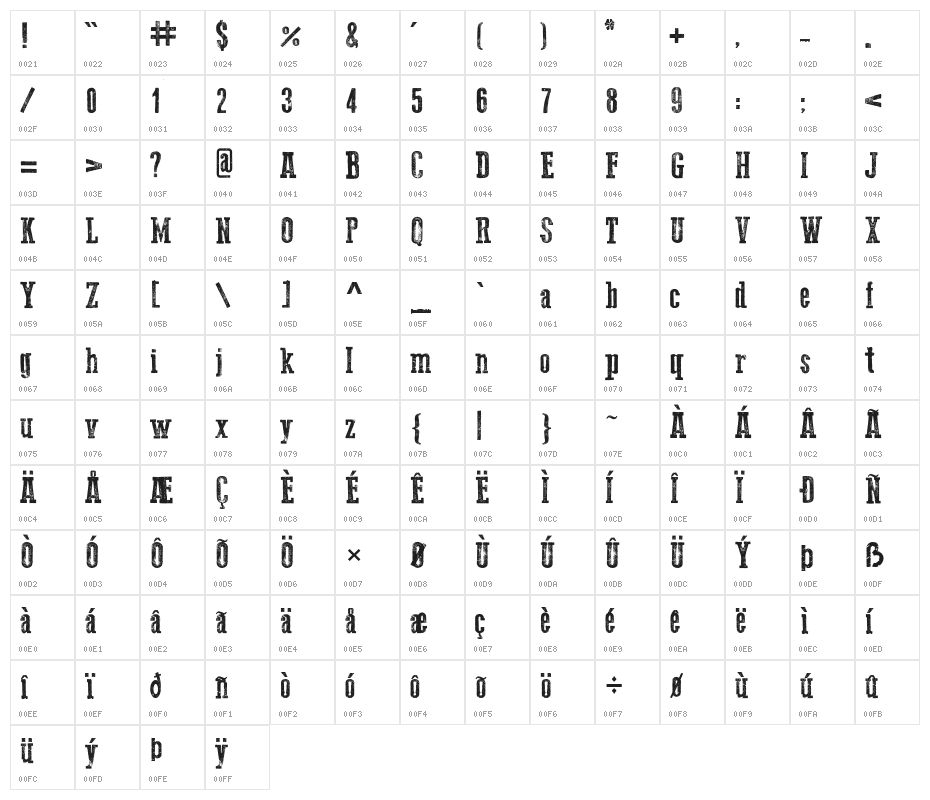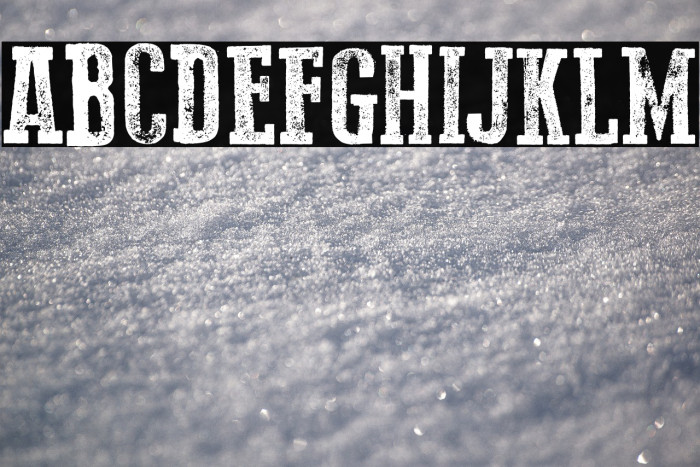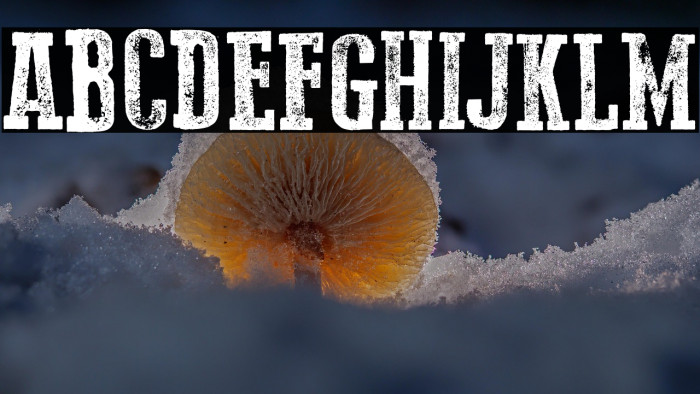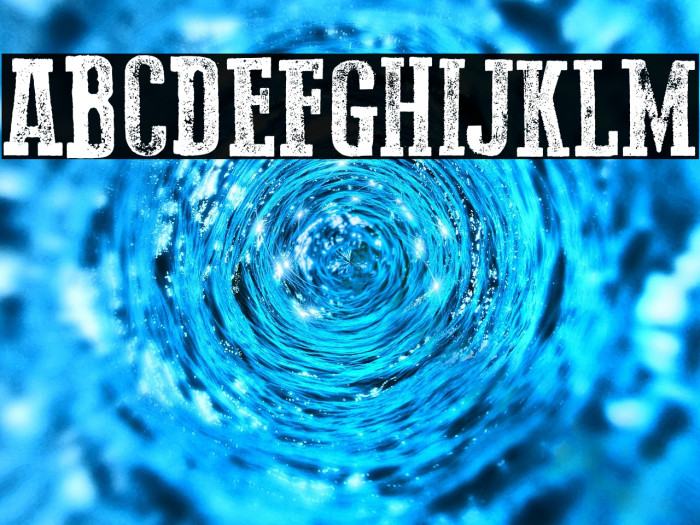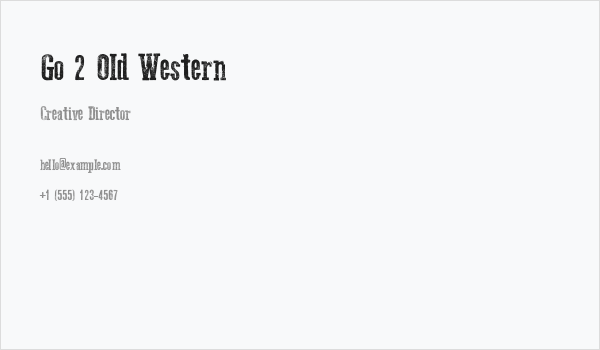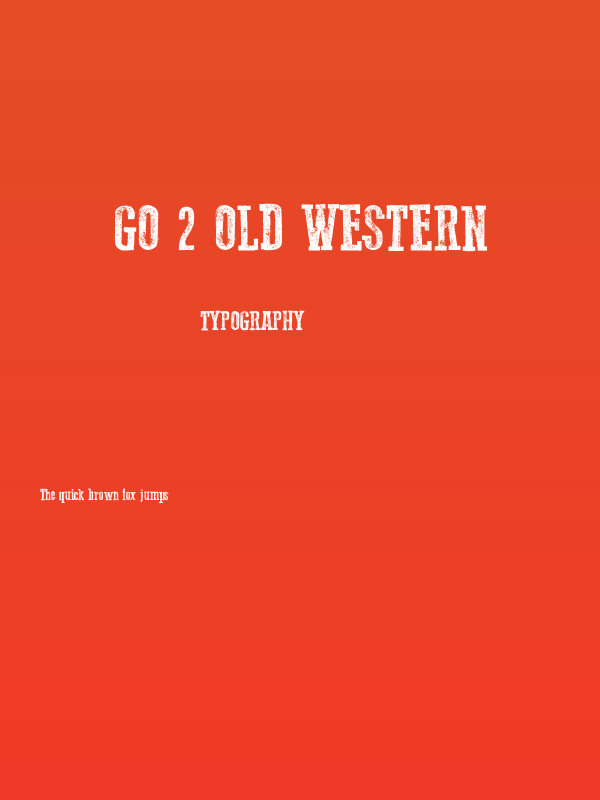
Go 2 Old Western Font
Go 2 Old Western Description
This font embodies a rugged, vintage aesthetic reminiscent of the Old West. Its bold, slab serif design features a distressed texture, giving it an authentic, weathered look. The characters are robust and impactful, with thick strokes and a slightly uneven appearance that adds to its rustic charm. The uppercase and lowercase letters maintain a consistent style, while the numerals and special characters complement the overall theme. This font is ideal for projects that require a touch of nostalgia or a Western-inspired feel.
| Proposed Projects | Perfect for posters, branding, signage, and themed events that require a vintage or Western look. |